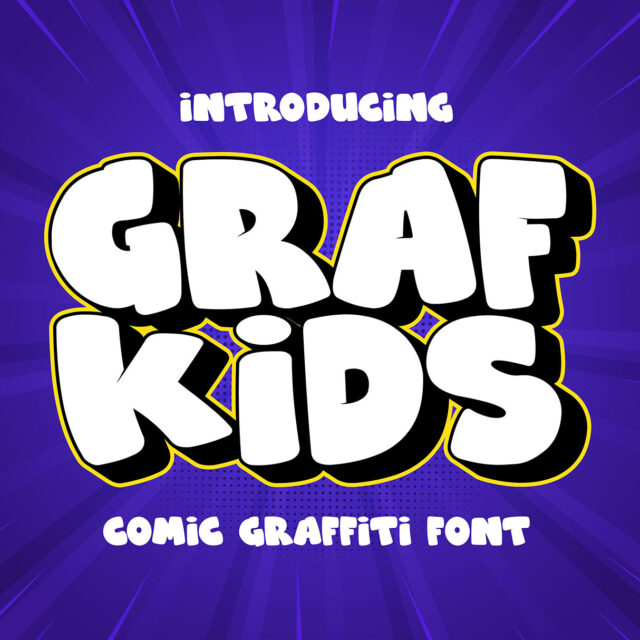
About Grafkids
Graf Kids is a bold display font with playful, comic-inspired characters. Its thick, rounded shapes and fun, bubbly design make it perfect for children’s projects, comic-style graphics, or anything that requires a vibrant and cheerful touch. This font is ideal for posters, storybooks, games, and branding aimed at a young audience, bringing an energetic and whimsical feel to any design. Its boldness ensures clear readability while maintaining a fun and approachable aesthetic.
- Versatile for branding, headline, or printing product